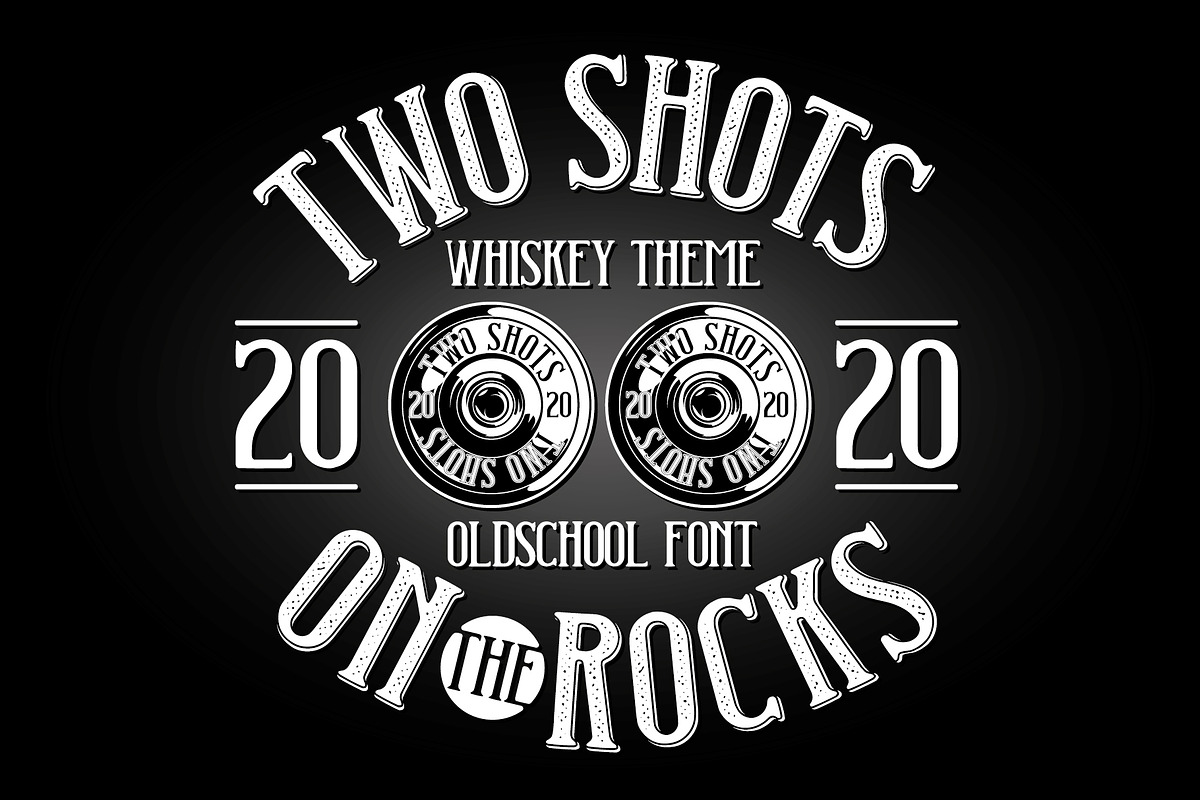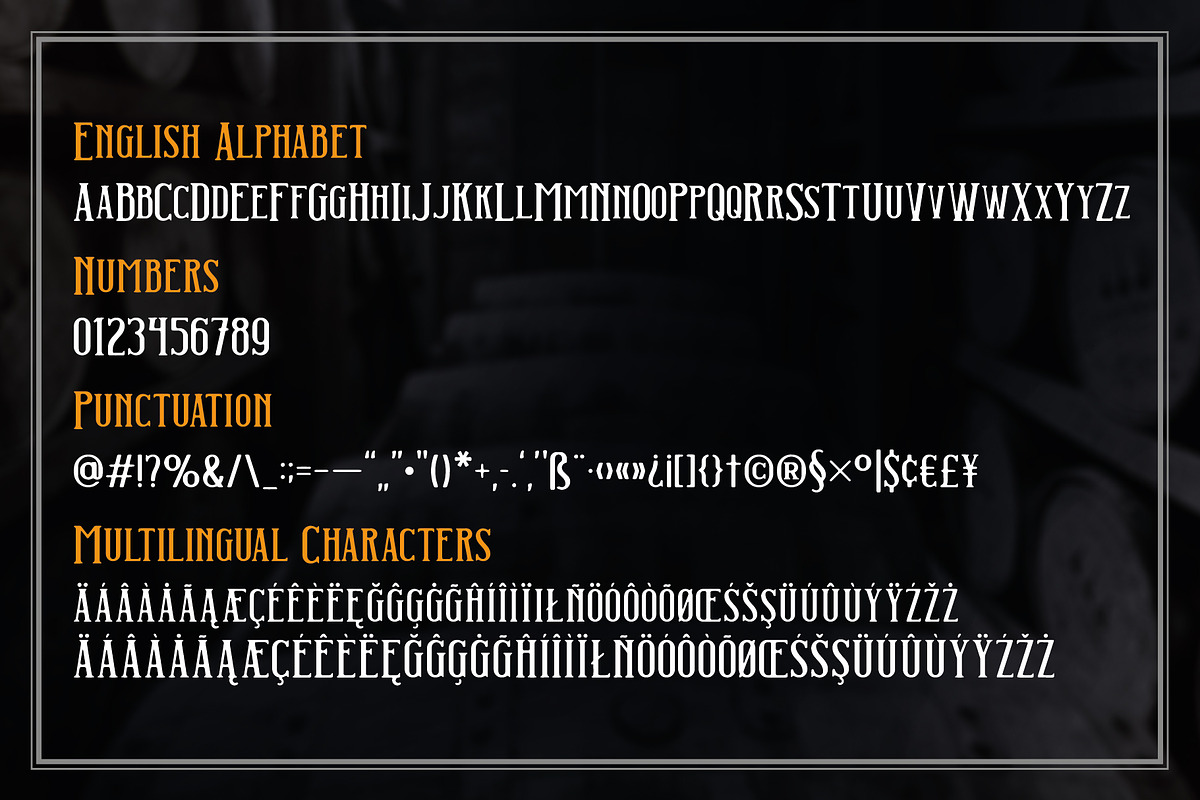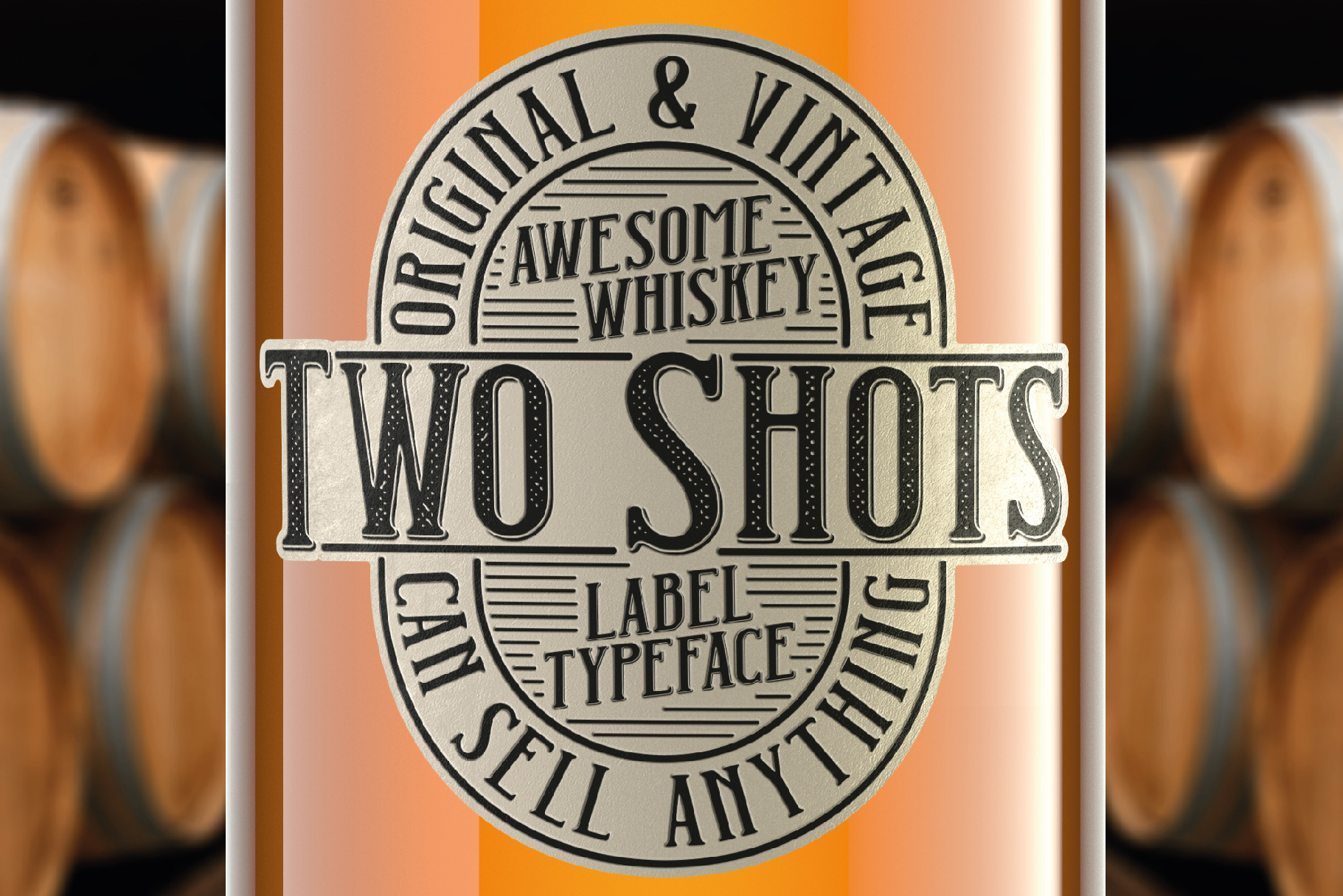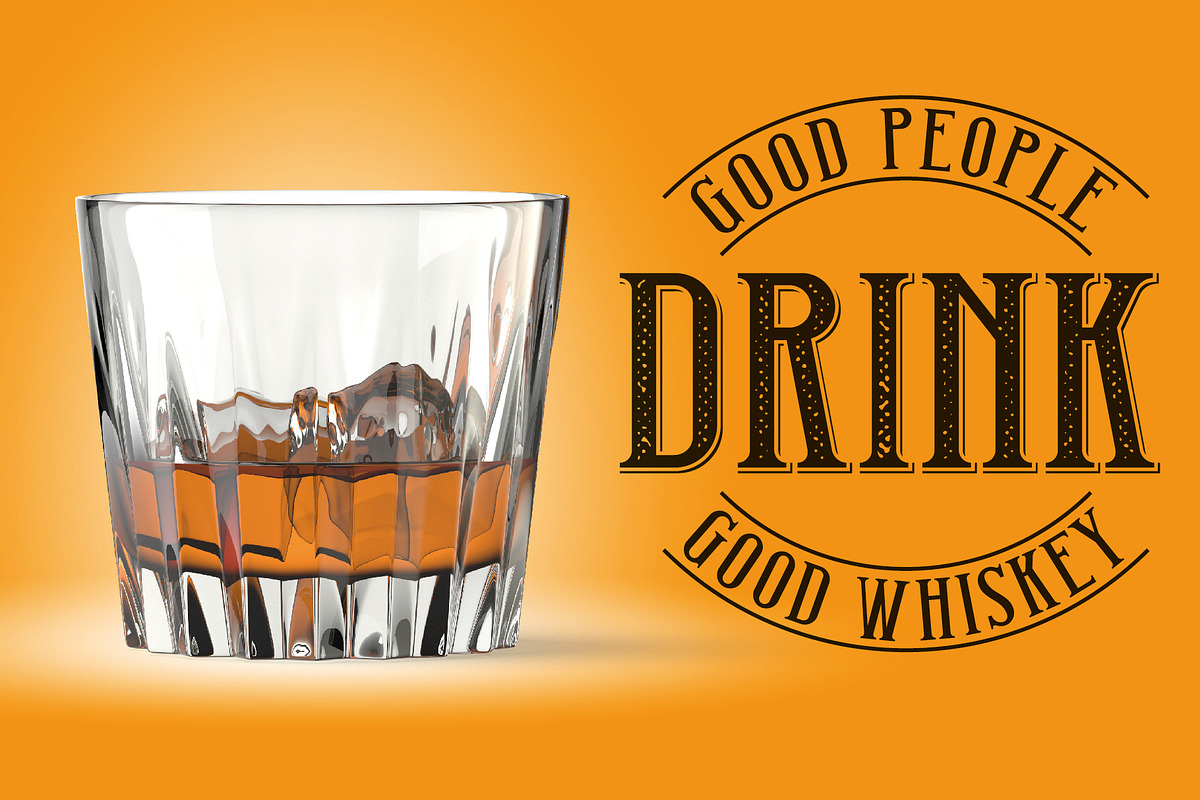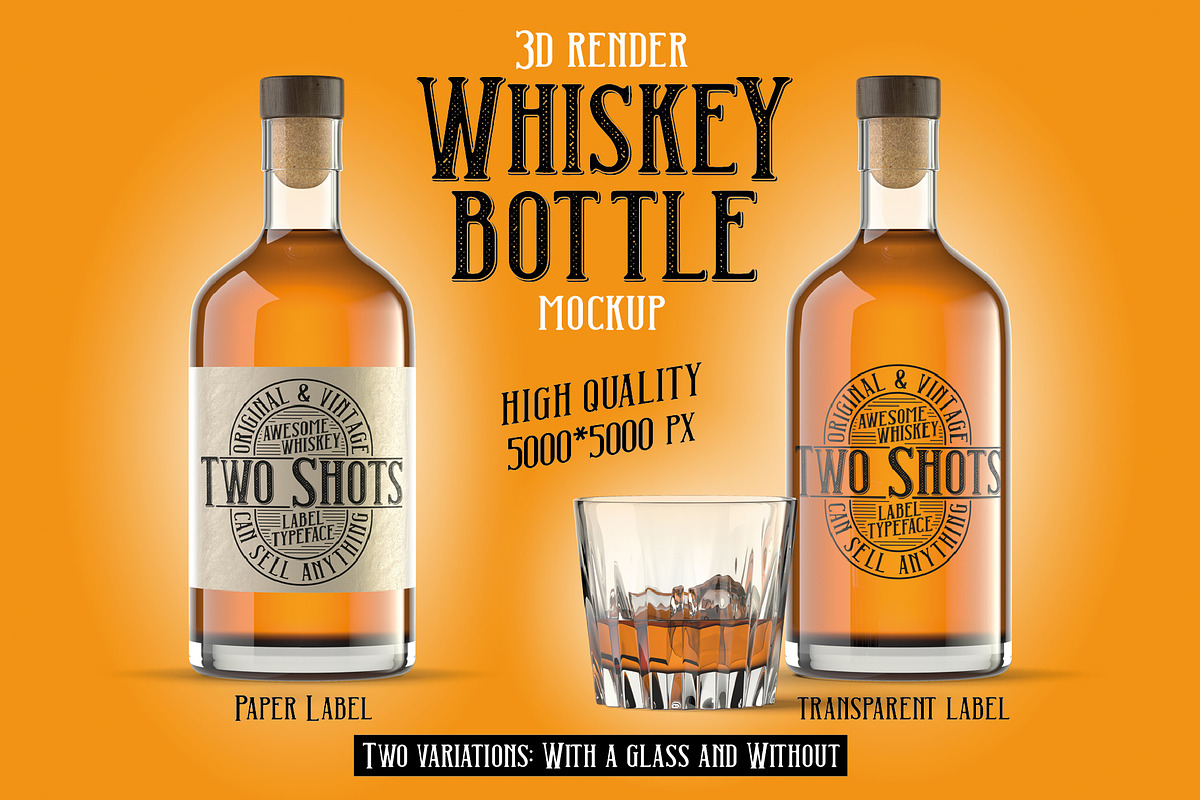
Two Shots label font
Introducing a vintage label font named Two Shots. This strong typeface is perfect for lettering on vintage style labels, posters, t-shirts, logo etc. This set contains also bonus: Whiskey bottle high quality mockup.
- Two fonts in complect. Clean and Rough with three styles for each: Base, Shadow and Full (Base+Shadow+Texture).
- A lot of punctuation and multilingual symbols. All set you can see at the preview.